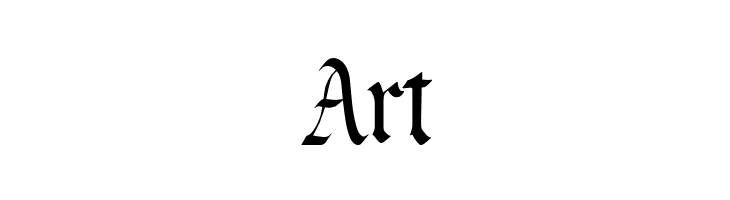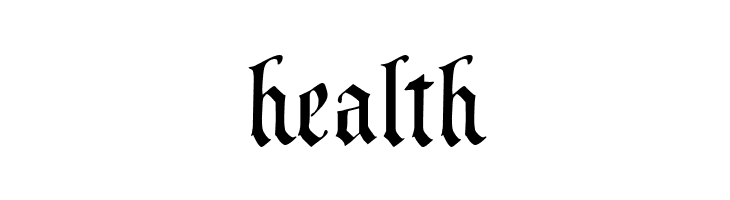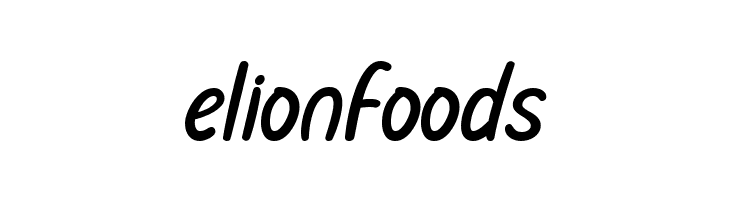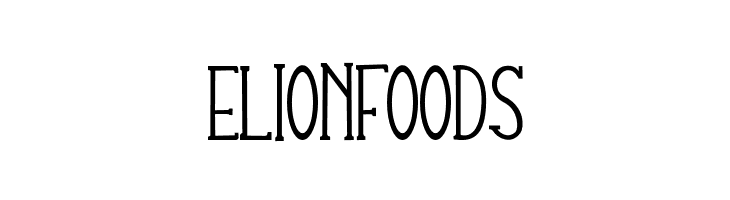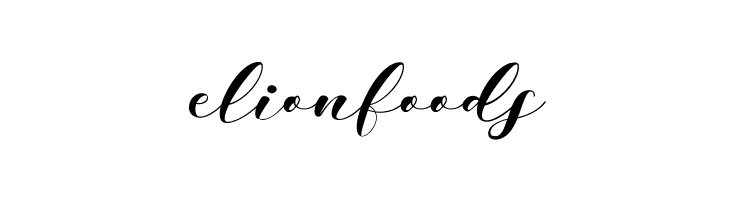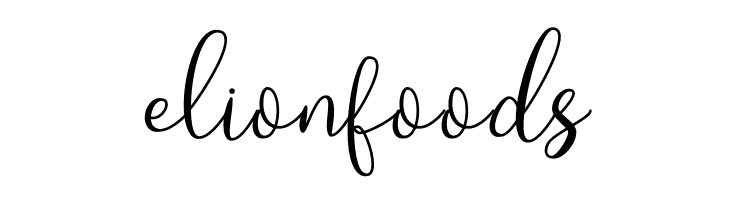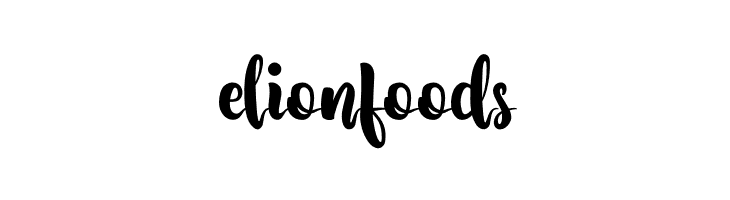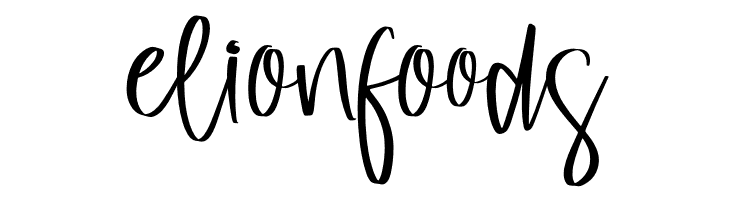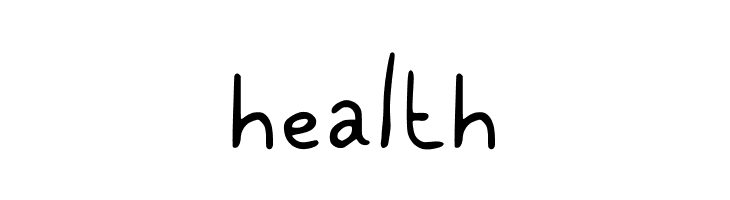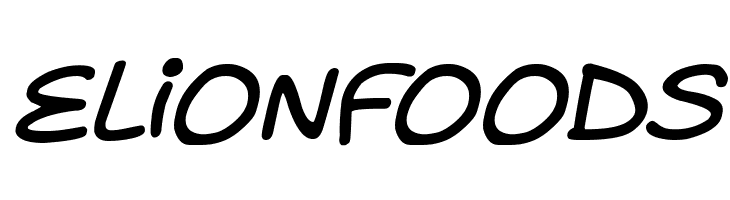
A playful, hand-drawn style font with bold, rounded characters.
A playful, handwritten-style font with rounded, bold characters.
A playful, handwritten style with smooth, flowing characters and a casual flair.
A whimsical, decorative font with playful embellishments and a hand-drawn style.
A charming, elegant handwritten font with smooth, flowing cursive letters.
A flowing, cursive font with elegant loops and swashes, offering a handwritten appearance.
A graceful script font with flowing, interconnected letters and high contrast strokes.
An elegant and flowing script font with graceful curves and fluid strokes.
A bold, playful script font with fluid, interconnected strokes.
A playful and casual script font with smooth, flowing lines.
A playful and elegant handwritten script font with a warm, friendly style.
A lively, cursive script font with flowing, connected letters.
A playful, handwritten font with tall, narrow characters and dynamic strokes.
A graceful, cursive script font with a natural, handwritten style.
A charming and elegant script font with flowing, cursive letterforms.
A graceful script font with flowing, cursive letters and a sophisticated style.
A bold, playful font with hand-drawn, whimsical characters and quirky embellishments.
An elegant, high-contrast font with refined, slender letterforms and decorative flourishes.
An elegant, high-contrast italic font with a refined and stylish appearance.
Playful handwritten font with a casual style.
Playful handwritten script with tall, narrow, and whimsical strokes.
A graceful script font with elegant, flowing cursive strokes.
A graceful, flowing script font with an elegant italic style.
A romantic and sophisticated script font with flowing, interconnected letters.
A lively and expressive handwritten font with dynamic strokes.
A playful, bold font with rounded, bubble-like characters.
A playful, hand-drawn font with bold, sketch-like outlines.
A playful, hand-drawn font with bold, rounded characters and a whimsical style.
A graceful, handwritten script font with a modern, elegant style.
A delicate and flowing script font with a romantic and sophisticated style.
A bold, flowing script font with elegant, connected letters.
A bold, flowing script font with elegant, cursive strokes.
A playful, handwritten font with a whimsical and friendly style.